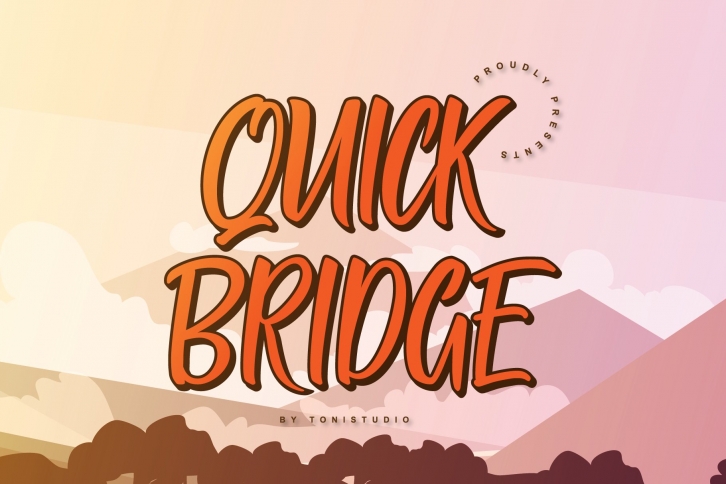
QUICK BRIDGE is a gorgeous font that was realeased on September 20, 2020. The font can be used in many style contexts and design environments. Perfect for invitations, magazines, websites, logos, and more! It was designed by ToniStudio and the file size is 14.45 MB. Thanks for checking out this font!